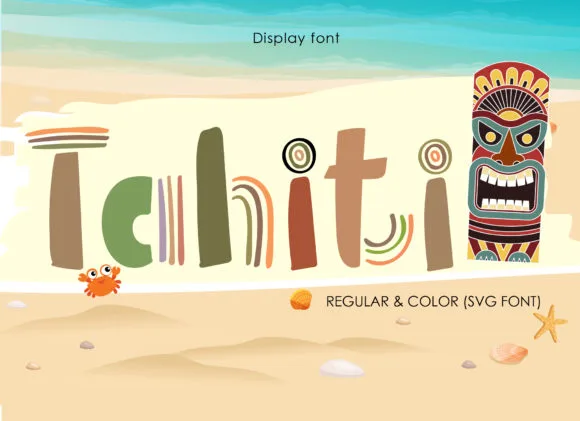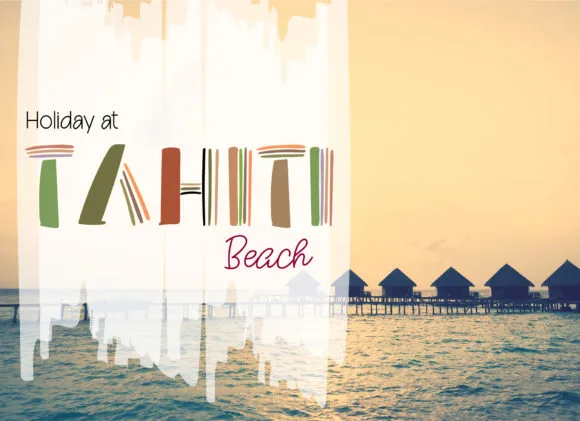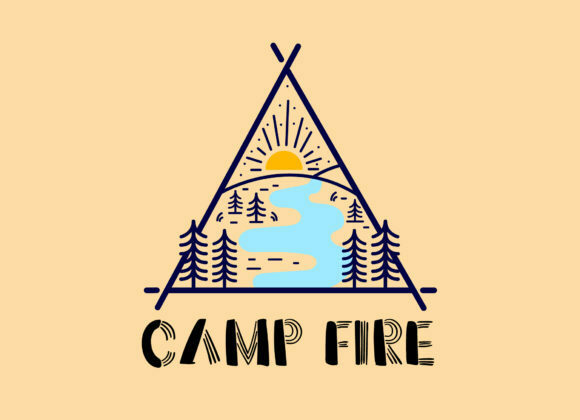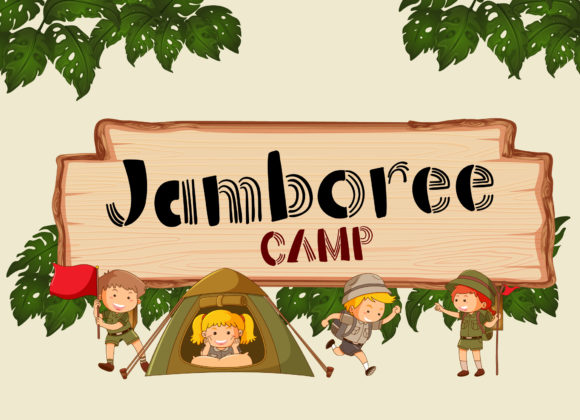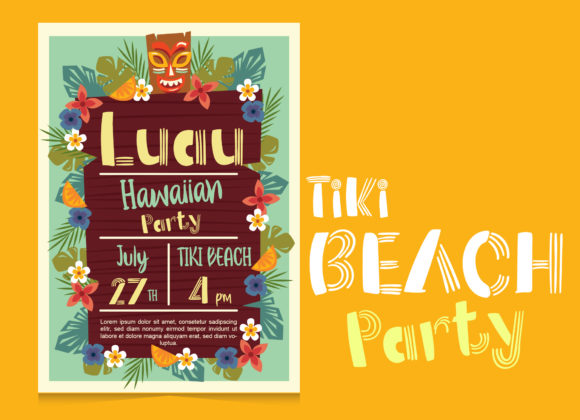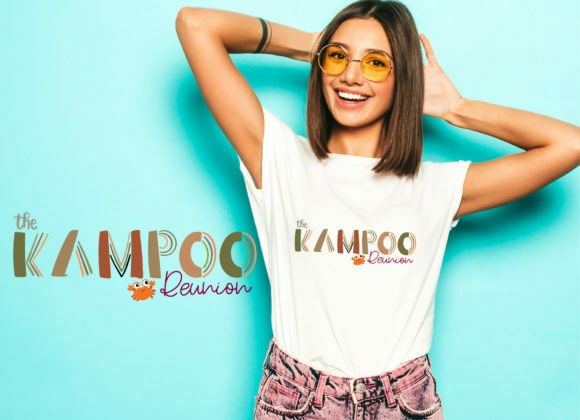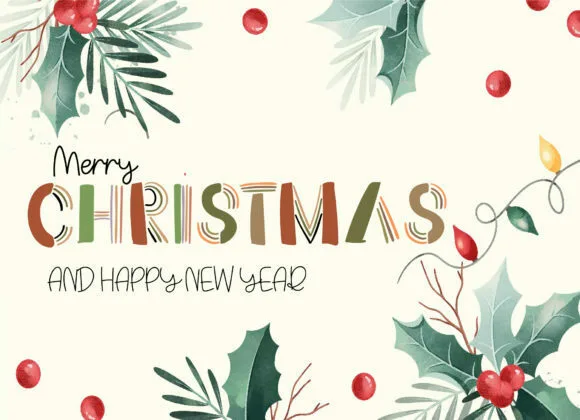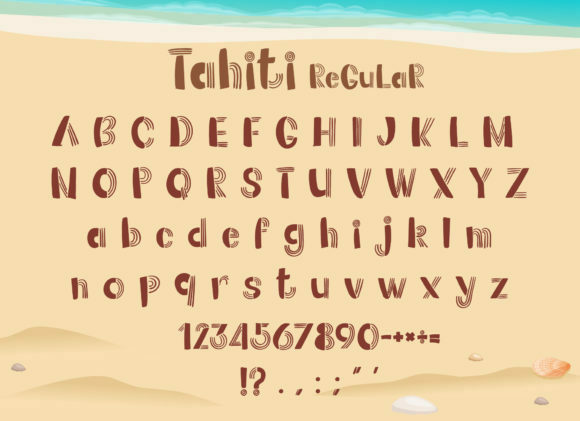
Tahiti Font
About Tahiti Font
Tahiti is an extraordinary and playful color font that exudes a sense of uniqueness and joy. With its vibrant and eye-catching design, Tahiti is sure to make any creative project stand out from the crowd.
This font is not just a regular typeface but a colorful experience that adds a touch of excitement and fun to your designs. Whether you’re creating posters, invitations, logos, or any other creative project, Tahiti will bring a burst of energy and originality.
Each letter in Tahiti is carefully crafted with a dazzling color palette, making it a perfect choice for projects that require a bold and vibrant aesthetic. The font’s distinctive style allows you to unleash your creativity and create designs that are truly one-of-a-kind.
In summary, Tahiti is a captivating and unique color font that brings joy and creativity to your designs. Its dazzling colors and distinctive style will make your projects stand out and leave a lasting impression. So unleash your imagination and let Tahiti transform your creative ideas into extraordinary works of art.